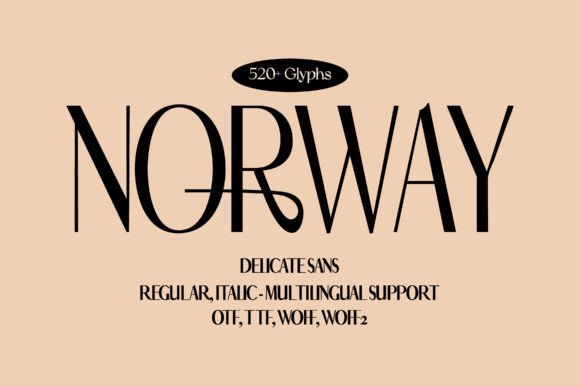
Step into a world of typographic elegance with Norway Font, a sans serif masterpiece that will transform your designs into breathtaking works of art. Its clean, understated lines and graceful curves exude a timeless sophistication that's bound to leave an indelible mark on your audience.
With Norway Font as your creative ally, you'll effortlessly craft logos that command attention, websites that captivate visitors, and print layouts that speak volumes. Its versatility knows no bounds, adapting seamlessly to a myriad of projects and industries.
Whether you're a seasoned design virtuoso or just starting your creative journey, Norway Font is the ultimate font companion. Its intuitive nature makes it a joy to use, allowing you to effortlessly bring your visions to life. Experience the sheer delight of creating designs that resonate with your audience, leaving them awestruck and yearning for more.
Don't settle for ordinary fonts that blend into the background. Embrace the extraordinary with Norway Font, the font that will elevate your designs to new heights of excellence. Its unwavering quality and timeless aesthetic will ensure that your creations stand out from the crowd, leaving a lasting impression that will be etched in the minds of your audience.
Choose Norway Font today and embark on a creative adventure like never before. Let its beauty and elegance inspire you to create designs that ignite the imagination and capture hearts. Experience the transformative power of Norway Font and witness the remarkable difference it makes to your designs.